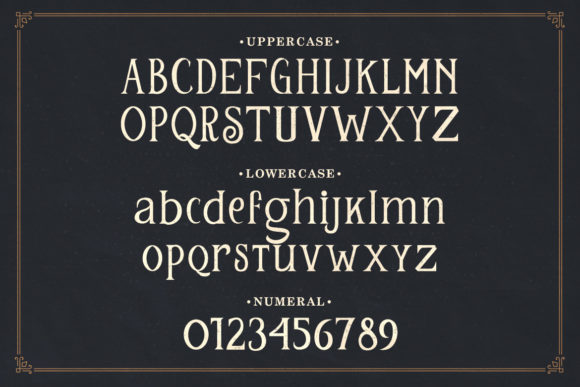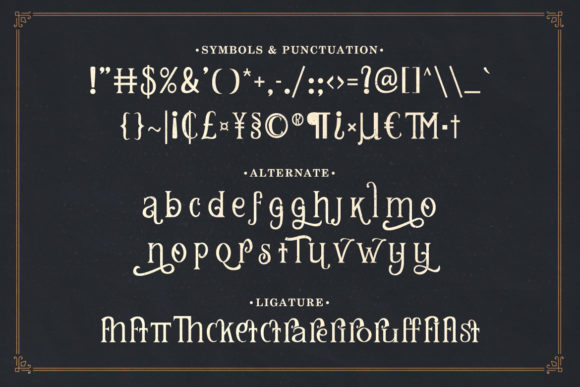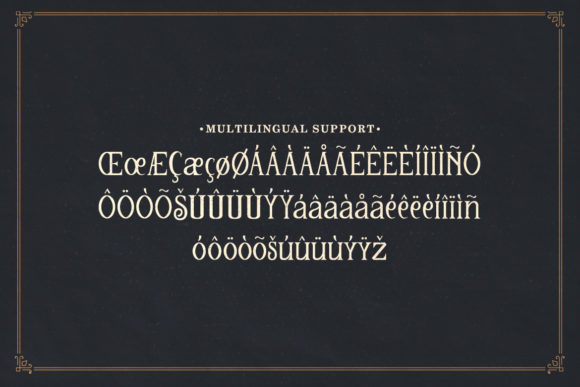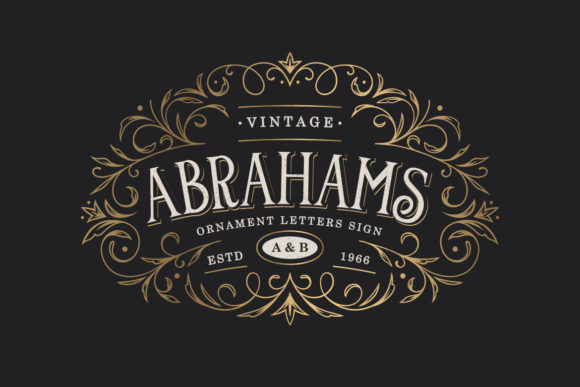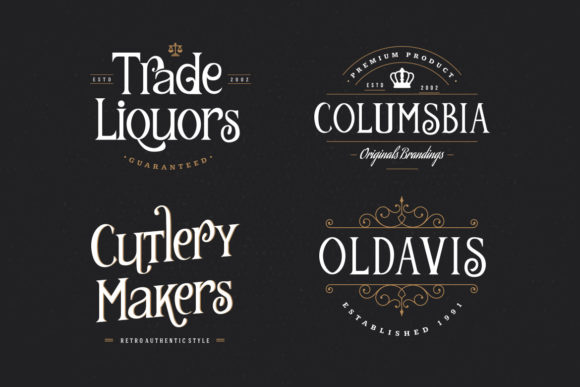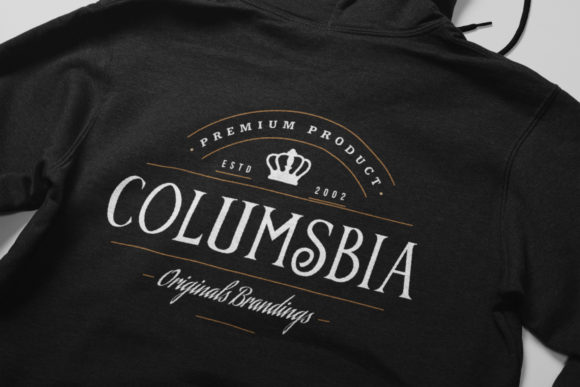
Introduction to Semur Font
Semur is a vintage styled, elegant and assertive serif font.
This font is PUA encoded which means you can access all of the glyphs and swashes with ease It will elevate a wide range of crafting ideas, from cards, to branding, labels and much more.
Key Features of Semur Font